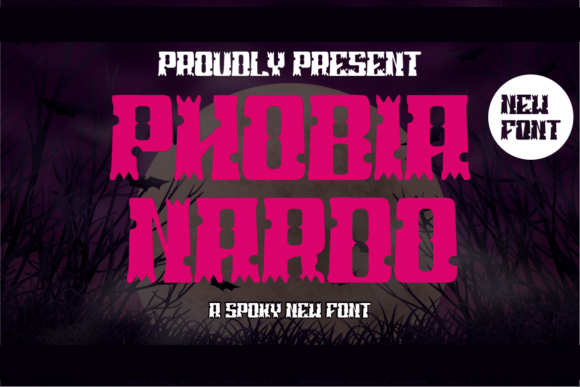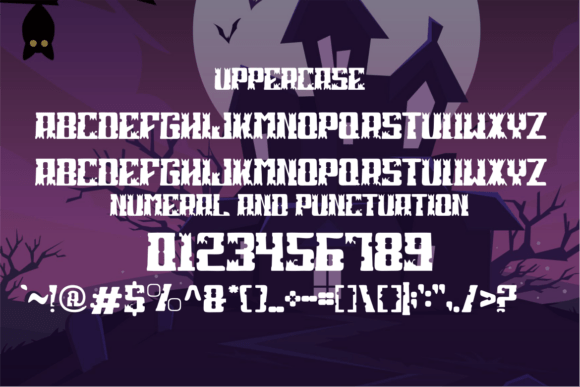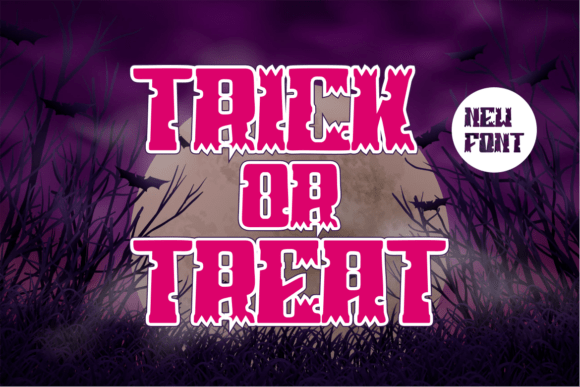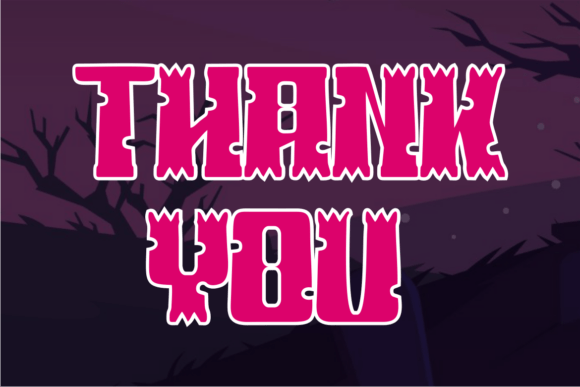
Phobia Nardo Font
About the Phobia Nardo Font
Meet Phobia Nardo Font, a stunning font that brings a touch of elegance and professionalism to any design. Phobia Nardo is a bold and eerie display font, drenched in spooky vibes perfect for Halloween themes and horror-inspired designs. Its jagged edges and haunted flair make it ideal for posters, merchandise, and scary storytelling visuals.
Phobia Nardo excels in large-scale applications such as posters, album art, and logos where its dramatic presence commands attention. It is less suitable for body text or UI elements; the jagged edges and high contrast would create readability issues in smaller sizes or continuous text.
Its bold and eerie personality pairs well with clean sans-serif fonts like Futura or Helvetica Neue for a striking contrast, or a more delicate serif like Garamond for a sophisticated juxtaposition of styles. Avoid pairing it with other similarly aggressive fonts, as this might result in visual clutter.
Consider Phobia Nardo for brands aiming for a dark, mysterious, or thrilling aesthetic—think horror films, gothic fashion, or Halloween-themed events. Its strong visual character makes it unsuitable for projects requiring a friendly or approachable feel.
Phobia Nardo Font Usage Examples
Phobia Nardo Font Example